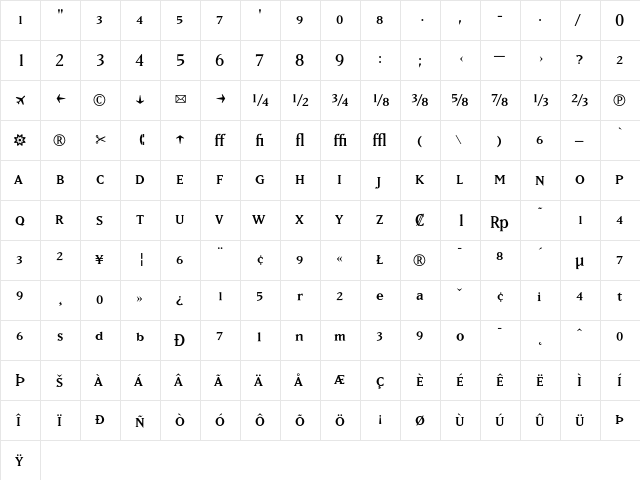
MatrixRegularFractions Medium Font Preview
MatrixRegularFractions Medium
MatrixRegularFractions Medium Font Details
| Foundry | Copr. Emigre Graphics |
Design Context for MatrixRegularFractions Typeface
MatrixRegularFractions offers clean, dependable letterforms without strong stylistic allegiance, making it a practical choice for designers who need flexibility.